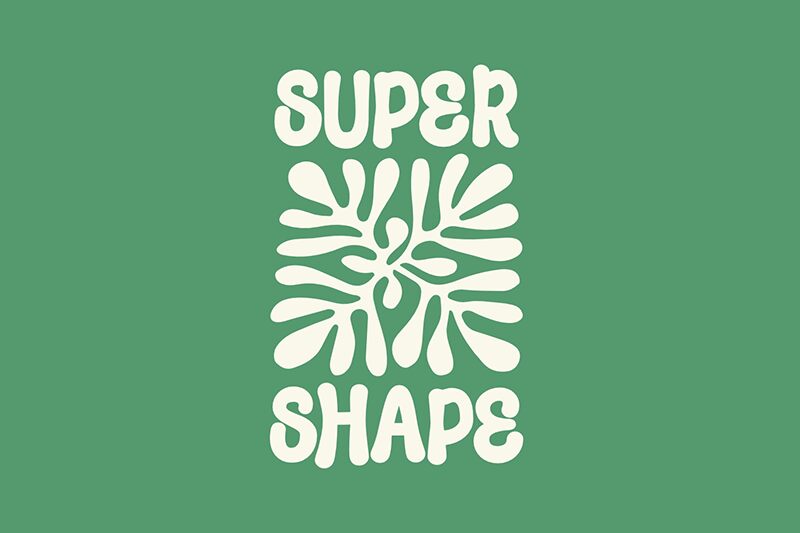
Super Shape
Super Shape font by fsuarez913 is a display typeface that embodies a playful cartoon style. With its rounded edges and welcoming charm, the font appears both retro-inspired and friendly. Super Shape’s casual elegance suits exciting projects that could use some extra spark to get through to their audience.